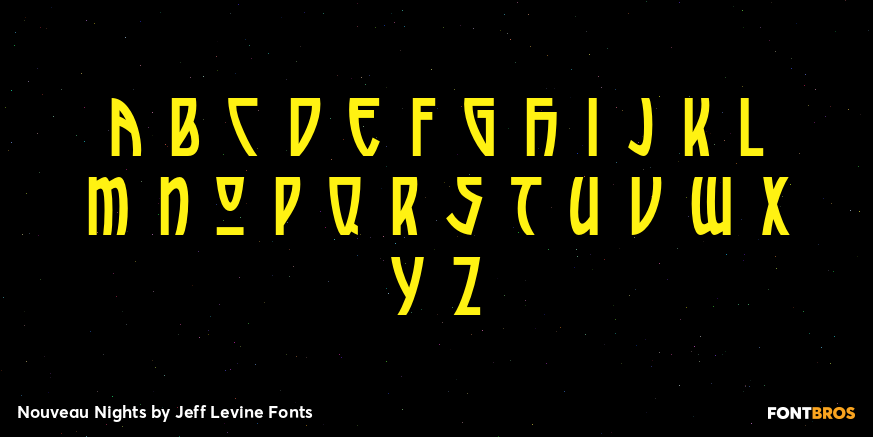
Nouveau Nights
The deep well of creativity that is the era of the hand lettered sheet music title page brings forth Nouveau Nights JNL.
Re-drawn from a period example of the 1920s, this titling font perfectly captures the warm "human" look of pen and ink lettering, long before the advent of "perfect" digital type.